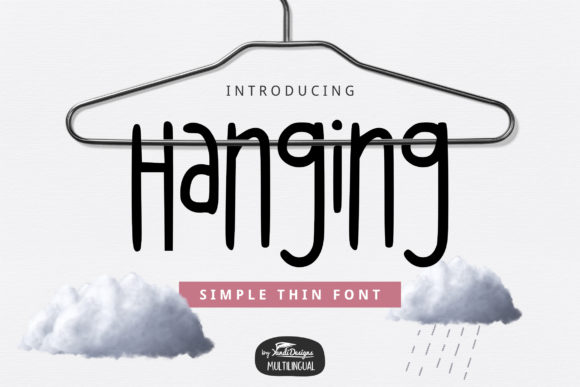
Step into the world of captivating typography with Hanging Font, a sans serif masterpiece that's sure to turn heads and make a lasting impression. Its long, hanging letters are a visual delight, adding a touch of whimsy and elegance to your designs. Whether you're creating eye-catching quotes, stunning logos, or unique branding material, Hanging Font is the perfect choice to make your words shine.
Unleash your creativity and let the possibilities flow as you explore the limitless potential of Hanging Font. Its playful personality makes it ideal for adding a touch of fun and charm to your projects. Use it to craft memorable social media posts that stand out from the crowd, or to design enchanting invitations and cards that will leave a lasting impression.
Beyond its aesthetic appeal, Hanging Font is also incredibly versatile, making it a go-to choice for a wide range of design projects. Its clean lines and legible characters ensure that your text remains clear and easy to read, even at small sizes. Whether you're working on web design, print materials, or digital graphics, Hanging Font will elevate your designs with its timeless charm.
Immerse yourself in the world of Hanging Font and discover the endless possibilities it holds for your creative endeavors. Let its playful spirit ignite your imagination and see your designs come to life with a font that's both captivating and functional. Embrace the beauty of typography and elevate your projects to new heights with Hanging Font.
Join the ranks of creative professionals who have embraced the allure of Hanging Font and experienced the transformative power of its unique aesthetic. Its long, hanging letters will add a touch of magic to your designs, leaving a lasting impression on your audience. Don't miss out on the opportunity to make your words truly unforgettable. Download Hanging Font today and embark on a journey of creative exploration that will leave you inspired and amazed.